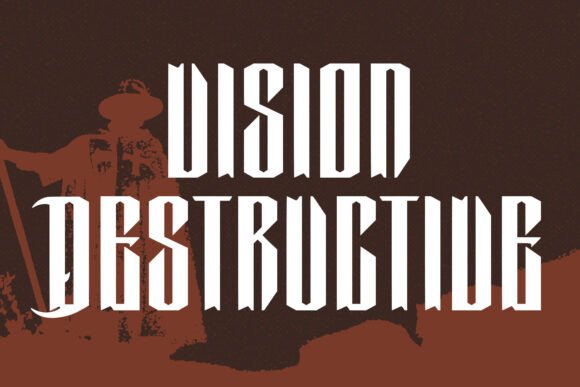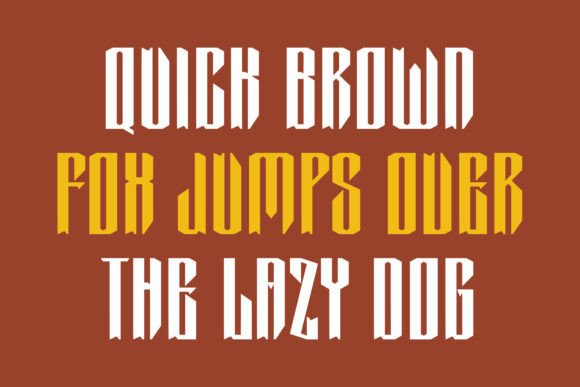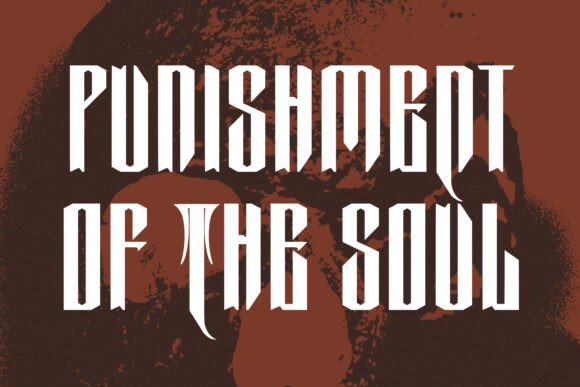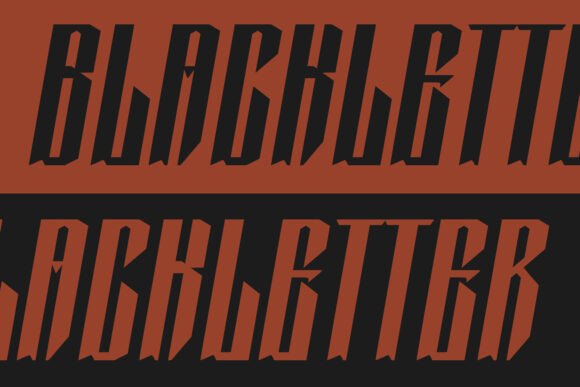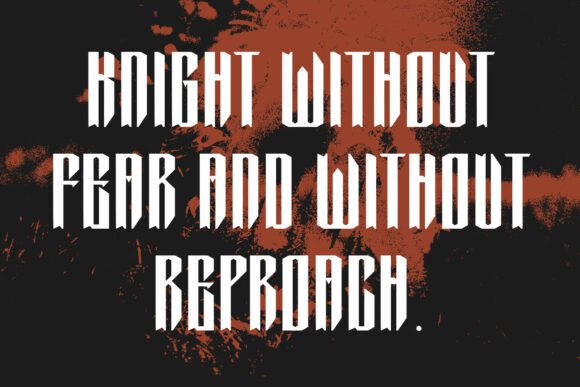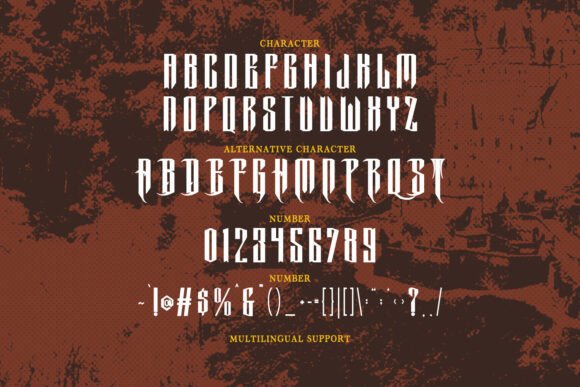
Introduction to Remmaq Font
Have you ever stumbled upon a font that transports you to a world of ancient mystique and modern flair? For designers, finding the perfect font can be a game-changer. It’s that moment when the perfect typography elevates a design from ordinary to extraordinary. For me, that moment came when I discovered the Remmaq Font – a striking blackletter display font that seamlessly blends medieval charm with modern precision.
The Remmaq Font is more than just a design resource; it’s a versatile tool that adds an air of authority and tradition to any creative project. With its bold vertical strokes and sharp edges, it’s perfect for metal band logos, gothic posters, book covers, or any project that demands a bold, old-world presence with contemporary impact. Whether you’re working on a high-quality design or looking for a free download to spice up your next project, the Remmaq Font is an invaluable addition to any designer’s toolkit.
Key Features of Remmaq Font
- Designed with precision, the Remmaq Font features crisp lines, smooth curves, and a high resolution of 300 DPI, making it perfect for printing and digital applications.
- Remmaq Font is an excellent addition to any designer’s toolkit, offering a versatile and stylish solution for creative projects.
Honest Review: Remmaq Font
I recently came across the Remmaq Font, and I must say it’s a great addition to any designer’s toolkit. With its high quality and unique design, it’s perfect for creative projects that require a touch of elegance.
- ✨ Highly legible, even at smaller font sizes.
- ✨ Suitable for a wide range of design applications, from print to digital.
The Remmaq Font is a versatile design resource that can be used with a transparent background, allowing for maximum flexibility in your creative project.
- ⚠️ Limited character set, which may not be ideal for projects that require a wide range of special characters.
- ⚠️ May not be suitable for very small font sizes due to its decorative nature.
Overall, I’m impressed with the Remmaq Font. It’s a great option for designers looking for a high-quality, unique font to add to their creative projects. While it may have some limitations, it’s definitely worth considering for your next design endeavor.
To get the most out of the Remmaq Font, experiment with different font sizes, colors, and combinations. This font is perfect for creative projects that require a unique and eye-catching look.
The Remmaq Font is ideal for graphic design, digital art, and marketing materials. It’s also great for personal projects, such as blog headers, social media graphics, and website design.